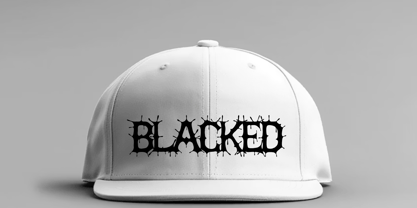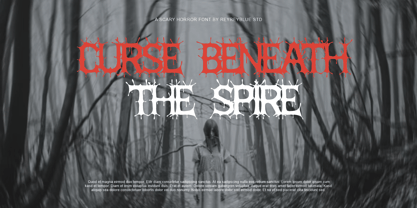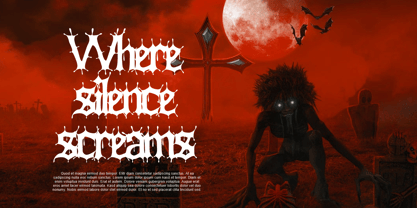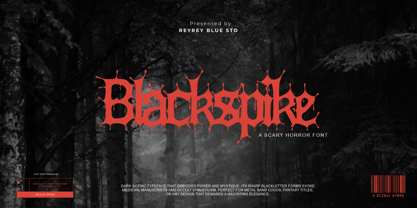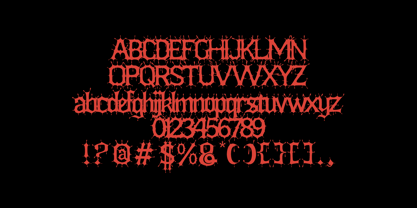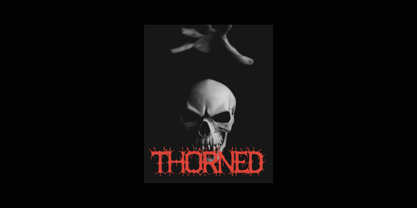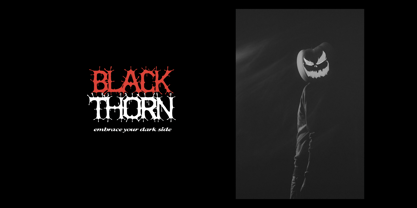
Blackspike
von Reyrey Blue Std
Die Schriftfamilie Blackspike wurde von Nur Hasan entworfen und von Reyrey Blue Std veröffentlicht. Blackspike enthält 1 Stile. Mehr über diese Familie
Blackspike is a dark gothic blackletter font forged for fear-driven visuals. With sharp thorned edges, aggressive strokes, and medieval-inspired letterforms, this typeface embodies power, mystery, and occult atmosphere. Its dramatic silhouette makes it perfect for horror titles, metal band logos, fantasy artwork, streetwear branding, posters, album covers, and dark-themed designs. Inspired by ancient manuscripts and brutal black metal aesthetics, Blackspike delivers a haunting presence that commands attention. Each character is crafted to feel intense, raw, and cinematic—ideal for designers who want their typography to feel dangerous, bold, and unforgettable. Whether you’re creating horror films, gothic branding, game titles, tattoos, or edgy merchandise, Blackspire brings a terrifying elegance that elevates your design instantly. Features Uppercase & Lowercase letters Numerals & basic punctuation Gothic blackletter style Strong, sharp, horror-inspired shapes Perfect for display, logos, and headlines
Designer: Nur Hasan
Foundry: Reyrey Blue Std